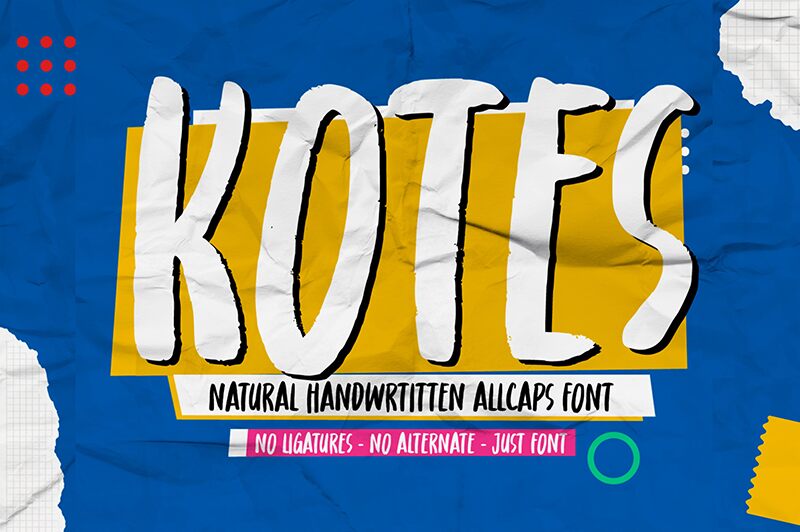
Kotes
Kotes is a natural handwritten all caps font designed by Gassstype, with a playful and crafty style that sets it apart. The semi-bold weight and extra-condensed width make it stand out, making it perfect for a wide range of creative projects. Whether you're designing a logo, poster, or packaging, Kotes adds a unique touch with its authentic and strong characteristics.
This brush font is versatile in its application, suitable for both digital and print designs. Its casual and quick handwritten style gives it a natural look that can bring an organic feel to your projects. With Kotes, you can add a personal and handmade touch to your designs that will make them stand out from the crowd.
Whether you're looking for a font that exudes creativity or want to add a playful element to your work, Kotes is the perfect choice for your next design project.